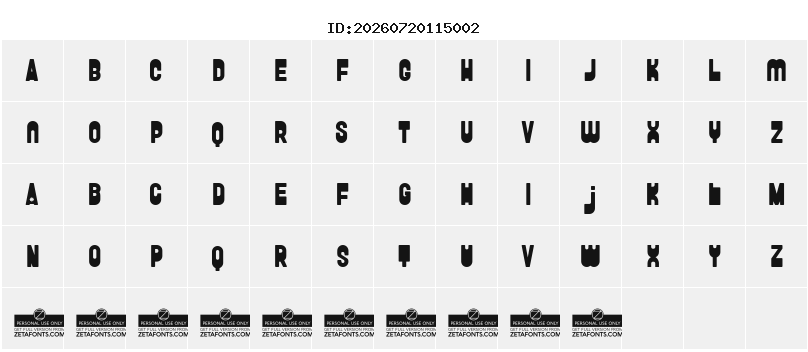
FunGhetto Preview
• Font Name: FunGhetto
• Designer: Cosimo Lorenzo Pancini and Francesco Canovaro
• Manufacturer: Studio Kmzero
About FunGhetto.ttf
FunGhetto.ttf is a modern, elegant sans-serif font designed for ultimate readability and visual harmony. Perfect for branding, headlines, web design, and print materials.